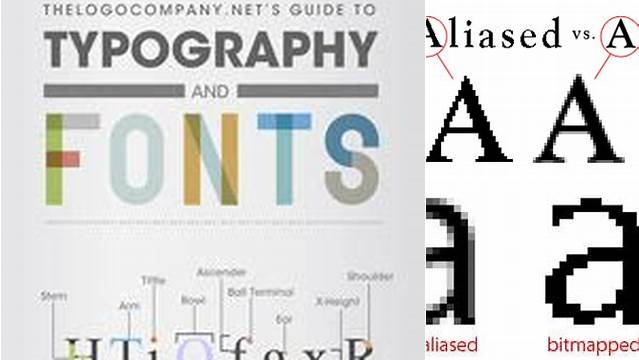
AA Fonts: The Ultimate Guide To Anti-Aliased Typography
Let's dive deep into the world of AA fonts, guys! What are they, why do we need them, and how can they make our designs look absolutely stunning? This guide is your one-stop-shop for everything you need to know about anti-aliased fonts. So, buckle up and get ready to become an AA font pro!
What Exactly are AA Fonts?
AA fonts, or anti-aliased fonts, are designed to smooth out the jagged edges that can appear on text, especially at smaller sizes or lower resolutions. Imagine looking at a letter 'O' rendered without anti-aliasing – you'd probably see a bunch of little steps making up the curve. Anti-aliasing uses shades of gray (or other colors) to fill in those steps, creating the illusion of a smoother, more refined shape. AA fonts make a huge difference in readability and visual appeal, particularly on screens. Think about reading a long article on your phone; without anti-aliasing, the text would be much harder to read and strain your eyes more. This is why virtually every modern operating system and web browser uses anti-aliasing by default.
The process works by essentially blurring the edges of the font slightly. This might sound counterintuitive, but it’s this subtle blurring that fools the eye into perceiving a smoother line. The algorithm calculates the coverage of a pixel by the font shape and then assigns a color based on that coverage. Pixels that are fully covered are rendered in the font's primary color, while pixels that are partially covered are rendered in a shade of gray (or a similar intermediate color). This blending of colors creates the anti-aliasing effect. Because different devices have different pixel densities, the effectiveness of anti-aliasing can vary. What looks great on a high-resolution monitor might still look a bit rough on an older, low-resolution screen. This is why font designers often create fonts specifically optimized for different screen sizes and resolutions.
The Importance of Anti-Aliasing in Typography
Why is anti-aliasing such a big deal? Well, it boils down to aesthetics and readability. Think about it: a website or application with crisp, clear text looks much more professional and polished than one with pixelated, jagged fonts. Readability is also greatly improved, especially for smaller font sizes. When text is easier to read, users are more likely to engage with the content and have a positive experience. Anti-aliasing reduces eye strain, making it more comfortable to read for extended periods. This is particularly important for websites and applications that are used for work or education.
Furthermore, anti-aliasing plays a critical role in branding and visual identity. The fonts you use are a key element of your brand's overall look and feel. Smooth, well-rendered fonts convey a sense of professionalism, attention to detail, and quality. Conversely, pixelated or jagged fonts can make your brand look outdated, unprofessional, or even untrustworthy. In today's competitive market, where first impressions matter more than ever, using anti-aliased fonts is a simple but effective way to elevate your brand's image. Moreover, anti-aliasing enables designers to use a wider range of font styles and weights effectively. Without it, some fonts might simply be unreadable at smaller sizes. With anti-aliasing, you can confidently use more delicate or intricate fonts without sacrificing readability.
Different Types of Anti-Aliasing Techniques
There are several different anti-aliasing techniques, each with its own strengths and weaknesses. Some common methods include: Full-scene anti-aliasing (FSAA), Multisampling anti-aliasing (MSAA), Coverage Sampling Anti-Aliasing (CSAA), and Temporal anti-aliasing (TAA). FSAA is a brute-force approach that renders the entire scene at a higher resolution and then downsamples it to the target resolution. This produces excellent results but can be very demanding on resources. MSAA is a more efficient technique that only anti-aliases the edges of objects, which reduces the performance impact. CSAA is an NVIDIA-specific technique that further optimizes MSAA by using coverage samples to improve the quality of anti-aliasing. TAA is a newer technique that uses information from previous frames to smooth out edges, which can be very effective but can also introduce ghosting artifacts.
In the context of AA fonts, the anti-aliasing is typically performed at the font rendering level, rather than the scene level. This means that the anti-aliasing algorithm is applied directly to the font glyphs before they are displayed on the screen. This allows for more precise control over the anti-aliasing process and can result in better quality text rendering. Font rendering engines often use techniques like grayscale anti-aliasing, which uses different shades of gray to smooth out the edges of the font, or subpixel rendering, which takes advantage of the arrangement of red, green, and blue subpixels on the screen to further improve the perceived resolution of the font.
Choosing the Right AA Font for Your Project
Selecting the right AA font is a critical decision that impacts the overall aesthetic and readability of your project. When making this choice, consider the target audience, the purpose of the text, and the medium in which it will be displayed. For example, if you're designing a website for a professional audience, you'll want to choose a font that is clean, modern, and easy to read. If you're designing a logo, you might want to choose a font that is more unique and eye-catching. It's also important to consider the font's legibility at different sizes. Some fonts look great at large sizes but become difficult to read at smaller sizes.
Consider the platform on which the font will be displayed. Fonts that look great on a desktop computer might not look as good on a mobile device. This is because mobile devices typically have lower screen resolutions than desktop computers. Also, think about the font's licensing. Some fonts are free to use, while others require a license. Make sure you understand the licensing terms before using a font in your project. There are many excellent AA fonts available, both free and paid. Experiment with different fonts to find the ones that best suit your needs. Don't be afraid to try something new! You might be surprised at what you discover.
AA Fonts and Web Design
In web design, AA fonts are absolutely essential for creating a positive user experience. No one wants to squint at pixelated text on a website! Using web fonts with proper anti-aliasing ensures that your text looks crisp and clear on a variety of devices and screen resolutions. Services like Google Fonts and Adobe Fonts offer a vast library of web fonts that are designed with anti-aliasing in mind. When choosing web fonts, consider factors such as load time, readability, and overall aesthetic. Some fonts are more optimized for web use than others, so it's important to test your fonts on different devices and browsers to ensure they look their best.
Consider using font-display property. This CSS property allows you to control how fonts are displayed while they are loading. This can help to prevent the "flash of unstyled text" (FOUT), which can be jarring to users. The font-display property has several values, including auto, block, swap, fallback, and optional. The auto value uses the browser's default font display behavior. The block value hides the text until the font has loaded. The swap value displays the text in a fallback font until the font has loaded, then swaps to the new font. The fallback value displays the text in a fallback font for a short period of time, then swaps to the new font if it has loaded, otherwise continues to display the fallback font. The optional value behaves like fallback, but allows the browser to decide whether or not to download the font based on the user's connection speed. Choosing the right font-display value can improve the perceived performance of your website and provide a better user experience.
AA Fonts and Mobile Apps
Just like in web design, AA fonts are crucial in mobile app development. Mobile devices often have smaller screens and higher pixel densities, making anti-aliasing even more important for readability. When choosing fonts for your mobile app, make sure they are optimized for mobile devices and support anti-aliasing. Consider the size and resolution of the target devices and test your fonts on those devices to ensure they look their best. Many mobile development frameworks provide built-in support for anti-aliasing, so take advantage of these features to create a visually appealing and user-friendly app.
Think about using native fonts. Mobile operating systems like iOS and Android have their own set of native fonts that are optimized for their respective platforms. Using native fonts can improve the performance and consistency of your app. When using custom fonts, make sure they are properly optimized for mobile devices and that they don't negatively impact the app's performance. Consider using font hinting. Font hinting is a technique that improves the rendering of fonts at small sizes. Font hinting provides instructions to the font renderer on how to adjust the font glyphs to fit the pixel grid. This can result in sharper and more readable text, especially on low-resolution screens. Many font editing tools allow you to manually hint fonts, or you can use automated hinting tools.
AA Fonts in Graphic Design
In the world of graphic design, AA fonts are indispensable for creating professional-looking visuals. Whether you're designing a logo, brochure, or poster, using fonts with proper anti-aliasing can make a huge difference in the overall quality of your work. When choosing fonts for your graphic design projects, consider the message you're trying to convey and select fonts that are appropriate for the style and tone of your design. Pay attention to the details, such as kerning, leading, and tracking, to ensure that your text is visually appealing and easy to read.
Consider using vector graphics. Vector graphics are scalable and resolution-independent, which means they can be scaled up or down without losing quality. When using vector graphics, the fonts will be rendered with anti-aliasing by default, which will result in smooth and crisp text. When using raster graphics, make sure the fonts are rendered at a high enough resolution to avoid pixelation. Also, experiment with different font effects, such as shadows, glows, and gradients. These effects can add depth and visual interest to your designs, but make sure they don't detract from the readability of the text. Use font pairing to create visual harmony. Font pairing is the process of selecting two or more fonts that complement each other and create a cohesive design. When pairing fonts, consider the font's weight, style, and personality. A good font pairing can elevate your design and make it more visually appealing.
How to Enable Anti-Aliasing for Fonts
Enabling anti-aliasing for fonts is usually a straightforward process, depending on the operating system or software you're using. On Windows, anti-aliasing is typically enabled by default, but you can adjust the settings in the Control Panel under Appearance and Personalization. On macOS, anti-aliasing is also enabled by default, but you can adjust the settings in System Preferences under General. In web browsers, anti-aliasing is usually enabled automatically, but you can sometimes adjust the settings in the browser's preferences. In graphics software like Adobe Photoshop or Illustrator, anti-aliasing is typically enabled by default for text layers, but you can adjust the settings in the text layer's properties.
For developers, you can control font anti-aliasing in your code using various APIs and libraries. For example, in HTML5 Canvas, you can use the context.imageSmoothingEnabled property to enable or disable anti-aliasing for drawing operations, including text rendering. In OpenGL, you can use the glEnable(GL_SMOOTH) function to enable anti-aliasing for lines and polygons, which can also affect the appearance of fonts. It's important to test your code on different devices and operating systems to ensure that anti-aliasing is working correctly and that your fonts look their best.
Troubleshooting AA Font Issues
Even with anti-aliasing enabled, you might still encounter issues with font rendering. One common problem is blurry or fuzzy text. This can be caused by a variety of factors, such as low screen resolution, incorrect font settings, or outdated graphics drivers. To troubleshoot these issues, start by checking your screen resolution and make sure it's set to the recommended resolution for your monitor. Then, check your font settings and make sure anti-aliasing is enabled. You can also try updating your graphics drivers to the latest version. If you're still having problems, try clearing your font cache or reinstalling the fonts.
Another common issue is jagged or pixelated text. This can be caused by disabled anti-aliasing, low font size, or using a font that is not optimized for screen rendering. To fix this, make sure anti-aliasing is enabled and try increasing the font size. You can also try using a different font that is specifically designed for screen rendering. If you're using a web browser, try clearing your browser's cache and cookies. Also, consider the color contrast between the text and the background. Low contrast can make the text harder to read and can exacerbate the appearance of jagged edges. Using a high-contrast color scheme can improve readability and reduce eye strain.
The Future of Font Rendering and Anti-Aliasing
The world of font rendering is constantly evolving, with new technologies and techniques emerging all the time. One promising trend is the use of subpixel rendering, which takes advantage of the arrangement of red, green, and blue subpixels on the screen to further improve the perceived resolution of fonts. Another trend is the use of vector fonts, which are scalable and resolution-independent, allowing them to be rendered at any size without losing quality. As screen resolutions continue to increase, anti-aliasing will become even more important for creating crisp, clear text.
Machine learning is also playing an increasingly important role in font rendering. Machine learning algorithms can be used to optimize font hinting, improve anti-aliasing, and even generate new fonts automatically. Also, technologies like variable fonts are gaining popularity. Variable fonts allow for a single font file to contain multiple variations of a font, such as different weights, styles, and widths. This can reduce file sizes and improve performance, while also providing designers with more flexibility and control over their typography. As these technologies continue to develop, we can expect to see even more stunning and readable fonts in the future.
AA Fonts: Best Practices for Designers
For designers, mastering the art of using AA fonts is crucial for creating visually appealing and user-friendly designs. Here are some best practices to keep in mind: Choose fonts that are appropriate for the target audience and the overall style of your design. Use anti-aliasing to smooth out the edges of your fonts and improve readability. Pay attention to kerning, leading, and tracking to ensure that your text is visually balanced and easy to read. Test your fonts on different devices and screen resolutions to ensure they look their best. Use web fonts with proper anti-aliasing for web design. Optimize your fonts for mobile devices in mobile app development. Use vector graphics for crisp, clear text in graphic design. Consider using font hinting to improve the rendering of fonts at small sizes. Experiment with different font effects, such as shadows, glows, and gradients, to add visual interest to your designs. Use font pairing to create visual harmony. Stay up-to-date on the latest font rendering technologies and techniques.
By following these best practices, you can ensure that your fonts look their best and that your designs are visually appealing and easy to read.
AA Fonts vs. Non-AA Fonts: A Visual Comparison
The difference between AA fonts and non-AA fonts is immediately noticeable. Non-AA fonts have jagged, pixelated edges, making them look rough and unprofessional. In contrast, AA fonts have smooth, clean edges, making them look more refined and easier to read. A visual comparison clearly demonstrates the superiority of AA fonts in terms of aesthetics and readability.
Consider creating a side-by-side comparison of the same text rendered with and without anti-aliasing. Use different font sizes to illustrate how anti-aliasing improves readability, especially at small sizes. Use different background colors to show how anti-aliasing affects the appearance of text on different backgrounds. Use different font weights and styles to demonstrate how anti-aliasing enhances the details and subtleties of different fonts. Compare the performance of rendering text with and without anti-aliasing. While anti-aliasing can improve the visual quality of text, it can also impact performance. Use tools like browser developer tools to measure the rendering time of text with and without anti-aliasing.
Free AA Fonts: Where to Find Them
Finding free AA fonts is easier than you might think! There are many websites that offer a wide selection of free fonts that are designed with anti-aliasing in mind. Some popular sources include Google Fonts, Font Squirrel, and DaFont. When downloading free fonts, make sure to check the licensing terms to ensure that you're allowed to use them for your intended purpose. Also, be wary of downloading fonts from untrusted sources, as they may contain malware or viruses.
When searching for free fonts, use keywords like "free aa fonts," "free anti-aliased fonts," or "free fonts for web." Filter the search results by font type (e.g., serif, sans-serif, display) and font style (e.g., bold, italic, condensed). Preview the fonts before downloading them to make sure they meet your needs. Consider the font's legibility at different sizes and resolutions. Also, check the font's character set to ensure it includes all the characters you need. Use font management tools to organize and manage your fonts. Font management tools can help you install, uninstall, and activate fonts easily. They can also help you identify and resolve font conflicts.
Paid AA Fonts: Are They Worth It?
While there are many excellent free AA fonts available, paid fonts often offer a higher level of quality, features, and support. Paid fonts are typically designed by professional type designers and are meticulously crafted to ensure optimal readability and visual appeal. They often come with a wider range of weights, styles, and glyphs, giving you more flexibility and control over your typography. Paid fonts also typically come with a commercial license, which allows you to use them for a wider range of projects.
Evaluate your needs. If you only need a few fonts for personal projects, free fonts might be sufficient. However, if you need fonts for professional projects or for branding purposes, paid fonts are usually a better investment. Think about your budget. Paid fonts can range in price from a few dollars to hundreds of dollars. Set a budget and stick to it. Consider the long-term value. Paid fonts can be used for many years, so they can be a worthwhile investment in the long run. Read reviews and testimonials from other designers before purchasing a font. Choose a font that is appropriate for your project and your target audience. Purchase fonts from reputable sources. This will ensure that you are getting a high-quality font that is properly licensed.
AA Fonts and Kerning: A Perfect Match
AA fonts and kerning go hand in hand to create visually appealing and readable text. Kerning is the process of adjusting the spacing between individual letters to improve the overall appearance of the text. When used in conjunction with anti-aliasing, kerning can make a huge difference in the readability and aesthetics of your typography. Poor kerning can result in uneven spacing between letters, making the text look awkward and difficult to read. Proper kerning, on the other hand, creates a sense of visual balance and harmony, making the text more pleasing to the eye.
Use kerning tools to adjust the spacing between letters. Many font editing tools include built-in kerning tools. You can also use online kerning tools. Pay attention to the details. Kerning is a subtle art. It requires careful attention to detail. Zoom in on the text and examine the spacing between individual letters. Adjust the kerning until the spacing is even and balanced. Use negative kerning to reduce the spacing between letters that are too far apart. Use positive kerning to increase the spacing between letters that are too close together. Be consistent with your kerning. Apply the same kerning adjustments to all instances of the same letter pairs. Get feedback from other designers. Ask other designers to review your kerning and provide feedback. A fresh pair of eyes can often spot problems that you might have missed.
AA Fonts and Leading: Enhancing Readability
Leading, also known as line-height, is the vertical space between lines of text. When used effectively with AA fonts, leading can greatly enhance the readability and overall appearance of your typography. Insufficient leading can cause lines of text to appear cramped and difficult to read, while excessive leading can make the text look disconnected and disjointed. Finding the right balance is key to creating visually appealing and readable text.
Consider the font size. Larger font sizes typically require more leading. Consider the line length. Longer lines of text typically require more leading. Consider the font style. Bold fonts typically require more leading. Use a leading calculator to determine the optimal leading for your text. There are many online leading calculators available. Experiment with different leading values. Find the leading value that looks best for your text. Get feedback from other designers. Ask other designers to review your leading and provide feedback. A fresh pair of eyes can often spot problems that you might have missed. Use a consistent leading value throughout your document. This will create a more professional and polished look.
AA Fonts and Tracking: Achieving Visual Harmony
Tracking, also known as letter-spacing, is the uniform spacing between all letters in a block of text. When used judiciously with AA fonts, tracking can help achieve visual harmony and improve the overall readability of your typography. While kerning adjusts the spacing between individual letter pairs, tracking adjusts the spacing between all letters equally. Subtle adjustments to tracking can make a significant difference in the appearance of your text, especially at larger sizes or for display fonts.
Consider the font style. Bold fonts typically require less tracking. Consider the font size. Larger font sizes typically require less tracking. Consider the line length. Longer lines of text typically require less tracking. Use a tracking tool to adjust the spacing between letters. Many font editing tools include built-in tracking tools. You can also use online tracking tools. Experiment with different tracking values. Find the tracking value that looks best for your text. Get feedback from other designers. Ask other designers to review your tracking and provide feedback. A fresh pair of eyes can often spot problems that you might have missed. Use a consistent tracking value throughout your document. This will create a more professional and polished look.
AA Fonts and Color Contrast: Optimizing for Accessibility
Color contrast plays a crucial role in the readability of AA fonts, especially for users with visual impairments. Ensuring sufficient contrast between the text and the background is essential for making your content accessible to everyone. Insufficient contrast can make the text difficult or impossible to read, leading to a frustrating user experience. Adhering to accessibility guidelines, such as those provided by the Web Content Accessibility Guidelines (WCAG), is crucial for creating inclusive designs.
Use a color contrast checker to evaluate the contrast between your text and background colors. There are many online color contrast checkers available. Ensure that your color combinations meet the minimum contrast requirements specified by WCAG. Consider the font weight. Lighter font weights typically require higher contrast ratios. Consider the font size. Smaller font sizes typically require higher contrast ratios. Avoid using colors that are too similar. This can make the text difficult to read. Test your color combinations with users with visual impairments. This will help you identify any potential problems. Provide alternative color schemes. This will allow users to choose a color scheme that is comfortable for them. Use clear and concise language. This will make your content easier to understand.
AA Fonts and Font Weight: Striking the Right Balance
The weight of a font, which refers to its thickness, can significantly impact the readability and visual appeal of AA fonts. Choosing the right font weight is essential for creating typography that is both legible and aesthetically pleasing. Lighter font weights can appear delicate and elegant, while heavier font weights can convey strength and authority. Finding the right balance is key to achieving the desired effect.
Consider the context. The appropriate font weight will depend on the context in which the font is being used. Consider the font size. Smaller font sizes typically require lighter font weights. Consider the background color. Darker backgrounds typically require lighter font weights. Experiment with different font weights. Find the font weight that looks best for your text. Get feedback from other designers. Ask other designers to review your font weight choices and provide feedback. A fresh pair of eyes can often spot problems that you might have missed. Use a consistent font weight throughout your document. This will create a more professional and polished look. Avoid using too many different font weights in the same document. This can create a cluttered and confusing look.
AA Fonts and Opacity: Creating Subtle Effects
Using opacity, or transparency, with AA fonts can create subtle and visually interesting effects. By reducing the opacity of text, you can create a sense of depth and layering, or soften the appearance of the text. However, it's important to use opacity judiciously, as too much transparency can make the text difficult to read. Finding the right balance is key to achieving the desired effect without sacrificing readability.
Consider the background color. Lighter backgrounds typically require lower opacity values. Consider the font weight. Lighter font weights typically require lower opacity values. Consider the font size. Smaller font sizes typically require lower opacity values. Experiment with different opacity values. Find the opacity value that looks best for your text. Use opacity to create a sense of depth. By reducing the opacity of elements that are further away, you can create a sense of depth. Use opacity to soften the appearance of text. This can be useful for creating a more subtle and elegant look. Use opacity to create a sense of layering. By overlapping elements with different opacity values, you can create a sense of layering. Avoid using too much opacity. This can make the text difficult to read.
AA Fonts and Shadows: Adding Depth and Dimension
Adding shadows to AA fonts can create a sense of depth and dimension, making the text appear to pop off the page. Shadows can be used to highlight important text, create a visual hierarchy, or add a touch of elegance to your designs. However, it's important to use shadows sparingly and with care, as too many shadows or poorly designed shadows can make the text look cluttered and difficult to read.
Consider the angle of the light source. The angle of the light source will determine the direction of the shadow. Consider the distance of the shadow from the text. The distance of the shadow from the text will determine the amount of depth. Consider the blur radius of the shadow. The blur radius of the shadow will determine the softness of the shadow. Consider the color of the shadow. The color of the shadow should complement the color of the text and the background. Use shadows to highlight important text. This can help to draw the reader's attention to key information. Use shadows to create a visual hierarchy. By using different shadow effects for different elements, you can create a visual hierarchy that guides the reader's eye. Use shadows to add a touch of elegance to your designs. Subtle shadows can add a touch of sophistication to your designs. Avoid using too many shadows. This can make the text look cluttered and difficult to read.
AA Fonts and Gradients: Creating Eye-Catching Effects
Using gradients with AA fonts can create eye-catching and visually appealing effects. Gradients can be used to add depth, dimension, and visual interest to your typography. They can also be used to create a sense of movement or energy. However, it's important to use gradients judiciously and with care, as poorly designed gradients can make the text look garish and difficult to read.
Consider the colors of the gradient. The colors of the gradient should complement each other and the color of the background. Consider the direction of the gradient. The direction of the gradient should be appropriate for the context in which the text is being used. Consider the type of gradient. There are many different types of gradients, such as linear gradients, radial gradients, and conical gradients. Choose the type of gradient that is most appropriate for your design. Use gradients to add depth and dimension. Gradients can be used to create a sense of depth and dimension, making the text appear to pop off the page. Use gradients to add visual interest. Gradients can be used to add visual interest to your designs and make them more eye-catching. Use gradients to create a sense of movement or energy. Gradients can be used to create a sense of movement or energy, making the text appear more dynamic. Avoid using too many colors in the gradient. This can make the gradient look cluttered and confusing.
AA Fonts and Text Effects: Enhancing Visual Appeal
Applying various text effects to AA fonts can greatly enhance their visual appeal and create unique and memorable typography. There are a wide variety of text effects available, such as embossing, engraving, outlining, and glow effects. These effects can be used to add depth, dimension, and visual interest to your text. However, it's important to use text effects sparingly and with care, as overusing or misusing them can make the text look cluttered and difficult to read.
Consider the context in which the text will be used. Consider the font style. Consider the overall design. Experiment with different text effects. Find the text effects that look best for your text and your design. Use text effects to add depth and dimension. This can help to make the text appear more three-dimensional. Use text effects to add visual interest. This can help to make the text more eye-catching and memorable. Use text effects to create a unique look. This can help to make your text stand out from the crowd. Avoid using too many text effects. This can make the text look cluttered and difficult to read. Use text effects sparingly and with care. When used properly, text effects can greatly enhance the visual appeal of your typography.
AA Fonts and Accessibility: Designing for Everyone
Ensuring accessibility is a crucial aspect of using AA fonts, as it ensures that your content is usable by everyone, including people with disabilities. There are several factors to consider when designing for accessibility, such as color contrast, font size, and font weight. Adhering to accessibility guidelines, such as those provided by the Web Content Accessibility Guidelines (WCAG), is essential for creating inclusive designs.
Use sufficient color contrast between the text and the background. Choose font sizes that are large enough to be easily read. Choose font weights that are easy to read. Use clear and concise language. Provide alternative text for images. Use semantic HTML. This will help screen readers to understand the structure of your content. Provide keyboard navigation. This will allow users to navigate your content using the keyboard. Test your designs with users with disabilities. This will help you identify any potential accessibility problems. Use assistive technologies to test your designs. This will help you to ensure that your designs are compatible with assistive technologies. Stay up-to-date on the latest accessibility guidelines. This will help you to ensure that your designs are accessible to everyone.
AA Fonts and Responsive Design: Adapting to Different Screens
In today's multi-device world, responsive design is essential for ensuring that your AA fonts look great on all screen sizes and resolutions. Responsive design involves creating layouts and typography that adapt to different devices, such as desktops, laptops, tablets, and smartphones. This ensures that your content is always readable and visually appealing, regardless of the device being used.
Use flexible layouts. This will allow your content to adapt to different screen sizes. Use scalable images. This will ensure that your images look good on all devices. Use media queries to apply different styles to different devices. This will allow you to customize the appearance of your content for each device. Use viewport meta tag. This will tell the browser how to scale your content to fit the screen. Test your designs on different devices. This will help you to ensure that your designs look good on all devices. Use browser developer tools to test your designs. This will help you to identify any potential responsive design problems. Use a responsive design framework. This can help you to create responsive designs more easily.
AA Fonts and Performance: Optimizing for Speed
Optimizing performance is an important consideration when using AA fonts, as slow-loading fonts can negatively impact the user experience. There are several techniques you can use to optimize font performance, such as using web fonts, caching fonts, and using font subsets. By optimizing your fonts for speed, you can ensure that your website or application loads quickly and provides a smooth and responsive user experience.
Use web fonts. Web fonts are optimized for web use. Cache your fonts. This will reduce the number of times that the fonts need to be downloaded. Use font subsets. This will reduce the size of the font files. Use a content delivery network (CDN). This will distribute your font files to servers around the world, which will improve download speeds for users in different locations. Use font compression. This will reduce the size of the font files. Use asynchronous font loading. This will prevent the fonts from blocking the rendering of the page. Test your website's performance with tools like Google PageSpeed Insights. This will help you identify any potential performance problems. Optimize your images. This will reduce the overall size of your website. Minimize the number of HTTP requests. This will improve the loading speed of your website.